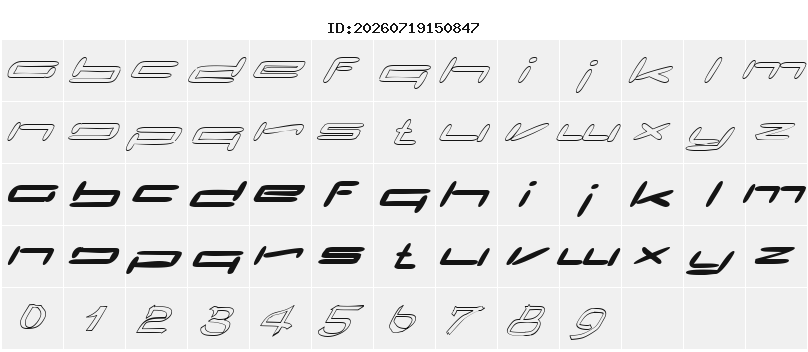
About Claytoona.ttf
Claytoona.ttf is a modern, elegant sans-serif font designed for ultimate readability and visual harmony. Perfect for branding, headlines, web design, and print materials.